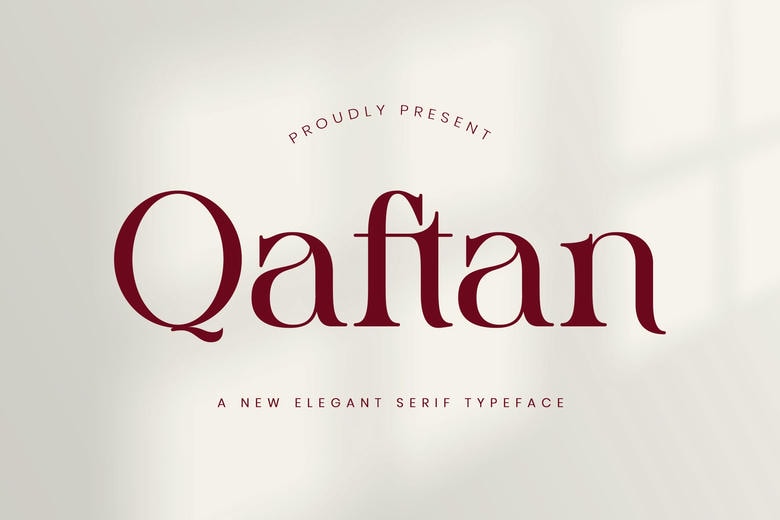
Qaftan Font
Qaftan Stylish Ligature Typeface takes inspiration from a well-known minimalist logo. It works well for templates, brochures, videos, branding, logos, and other design projects.
Qaftan Serif Font